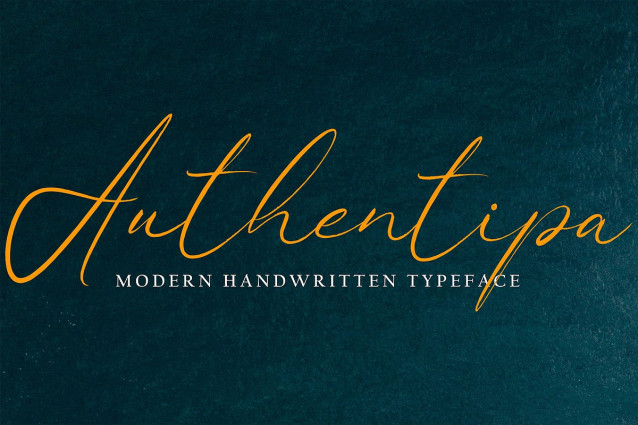
Authentipa Handwriting Font
Authentipa Handwriting Font with new style, this font will perfect for many different project ex: quotes, logo, blog header, poster, banding, letter, invitation, stationery, etc…